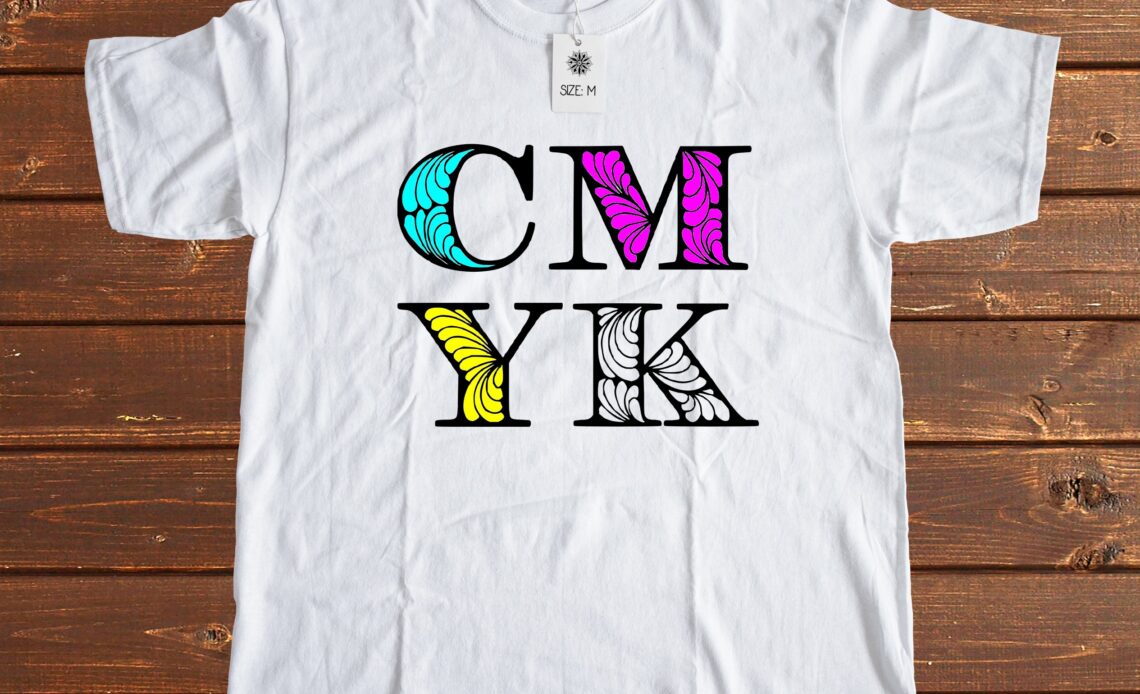
Journey back in time with Retrograph, a hand-crafted decorative font that unlocks the charm of yesteryear. This font is an artistic masterpiece inspired by the elegance of vintage signage, posters, and letterpress printing, offering a touch of nostalgia and timeless beauty to your creative projects.
With its graceful curves, playful lines, and intricate details, Retrograph captures the essence of a bygone era, evoking a sense of wonder and sentimentality. The meticulous craftsmanship of each character ensures a delightful visual experience, adding an artistic flair to your designs.
Step into the world of Retrograph and let your imagination run wild. Create captivating logos that exude a classic charm, design eye-catching social media graphics that evoke a sense of nostalgia, or craft stunning posters and flyers that transport viewers to a different time. The possibilities are endless, limited only by your creativity.
Whether you're a graphic designer seeking a unique and distinctive font, a marketer looking to add a touch of vintage appeal to your campaigns, or simply a creative soul yearning for a font that sparks your imagination, Retrograph is the perfect choice.
Discover the beauty of Retrograph today and embark on a creative journey that blends the past with the present. Let this font infuse your designs with a touch of history, elegance, and timeless charm.